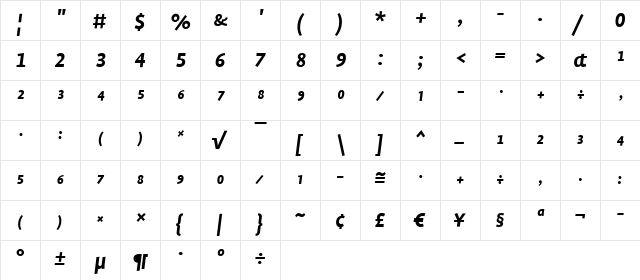
Profile Bold Italic
Design Context for Profile Typeface
Profile offers clean, dependable letterforms without strong stylistic allegiance, making it a practical choice for designers who need flexibility. Its italic angle brings a sense of urgency and motion to the letterforms. Its bold stroke weight gives it real presence on the page.
Pro Tip: Use Profile for emphasis, pull quotes, and subheadings where its slanted energy can add rhythm to the layout.